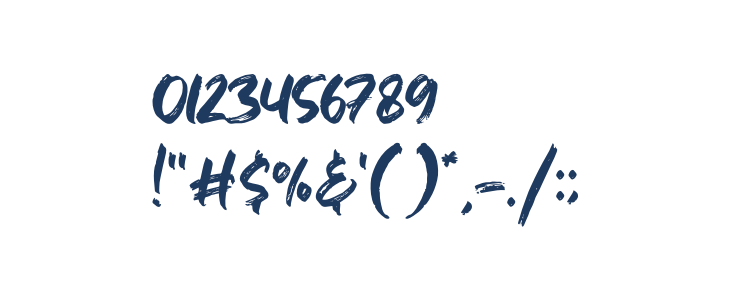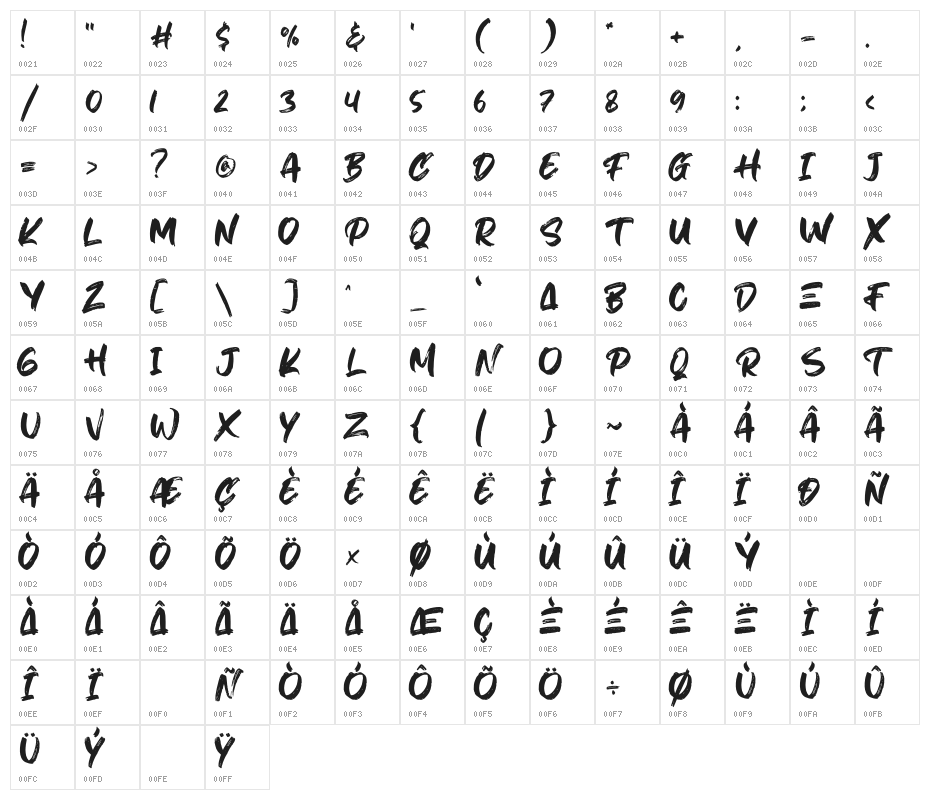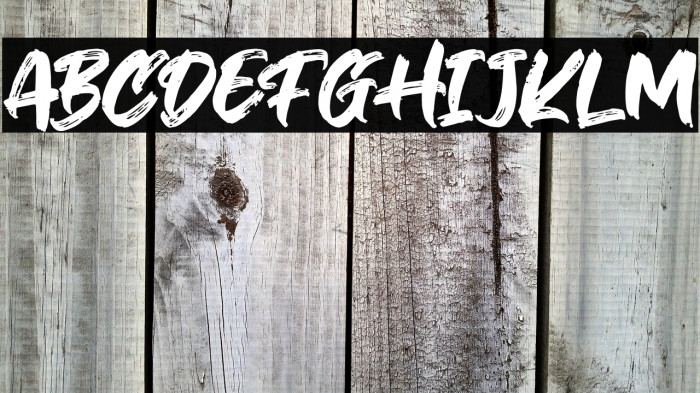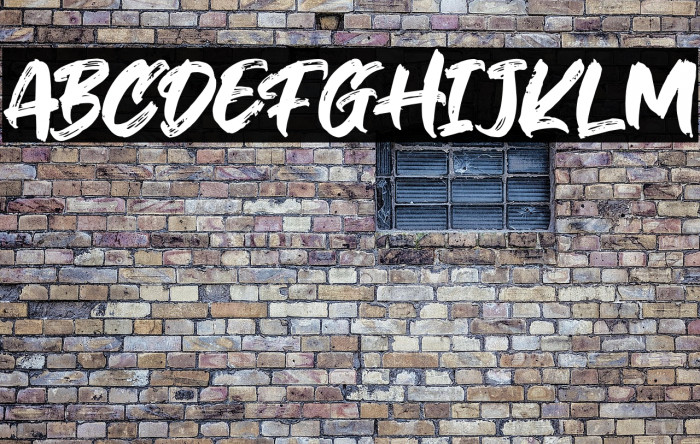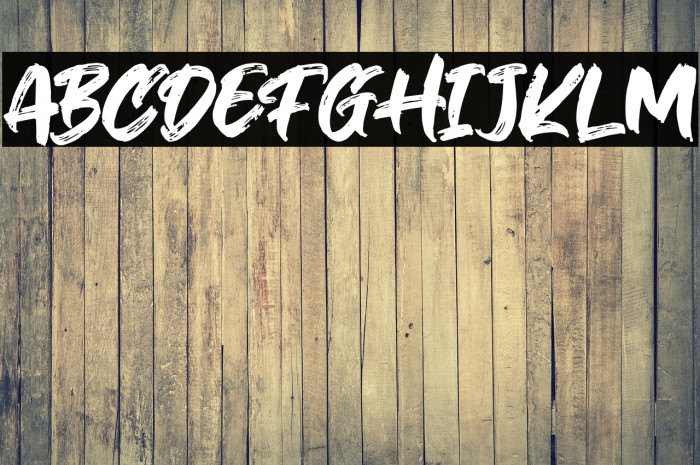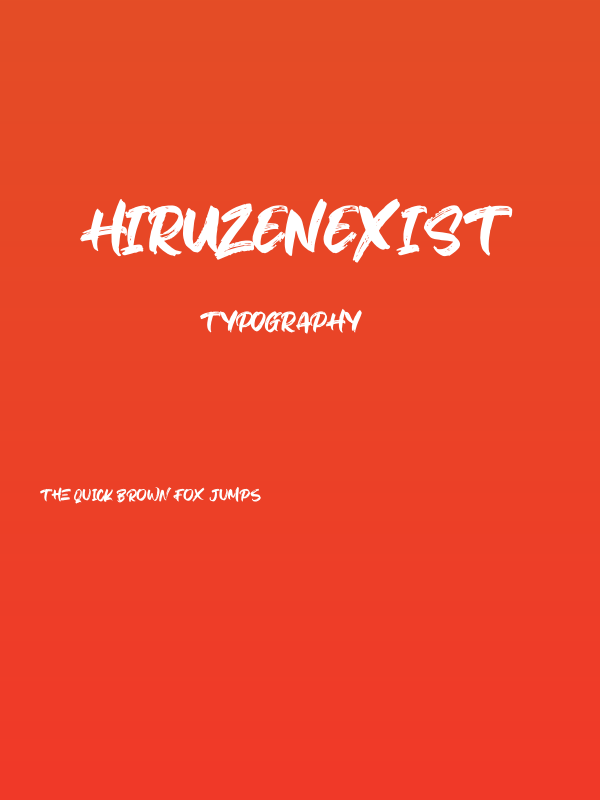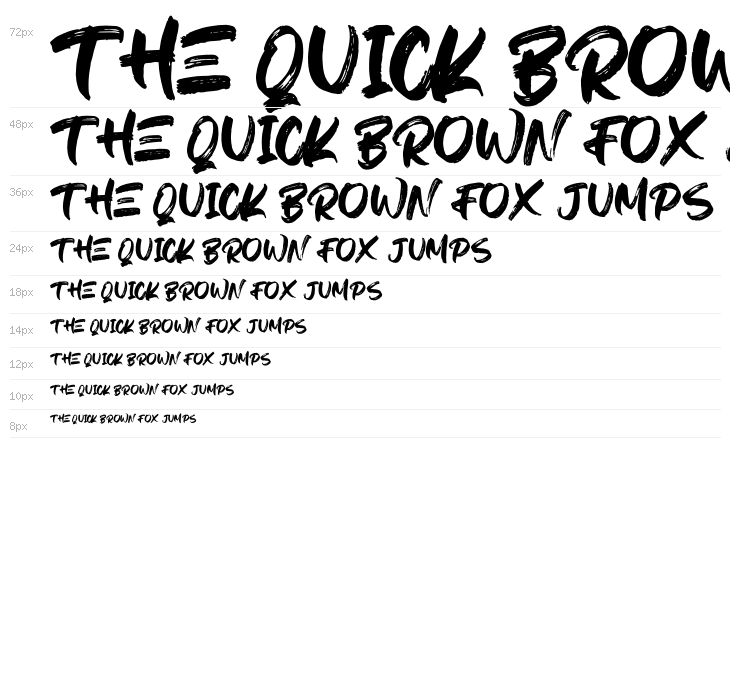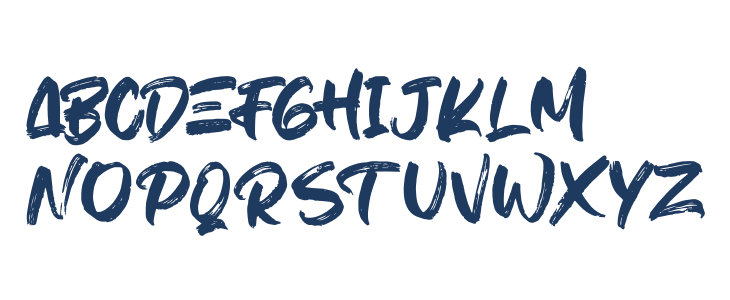
HiruzenExist Font
HiruzenExist Description
This font features a bold, expressive style with a brush-like texture that gives it a dynamic and energetic appearance. The strokes are uneven and have a hand-painted quality, adding a sense of movement and spontaneity. The uppercase and lowercase letters maintain a consistent style, with slightly exaggerated curves and angles that enhance its artistic flair. Numbers and special characters follow the same aesthetic, ensuring a cohesive look across all glyphs. This font is ideal for projects that require a strong visual impact and a creative touch.